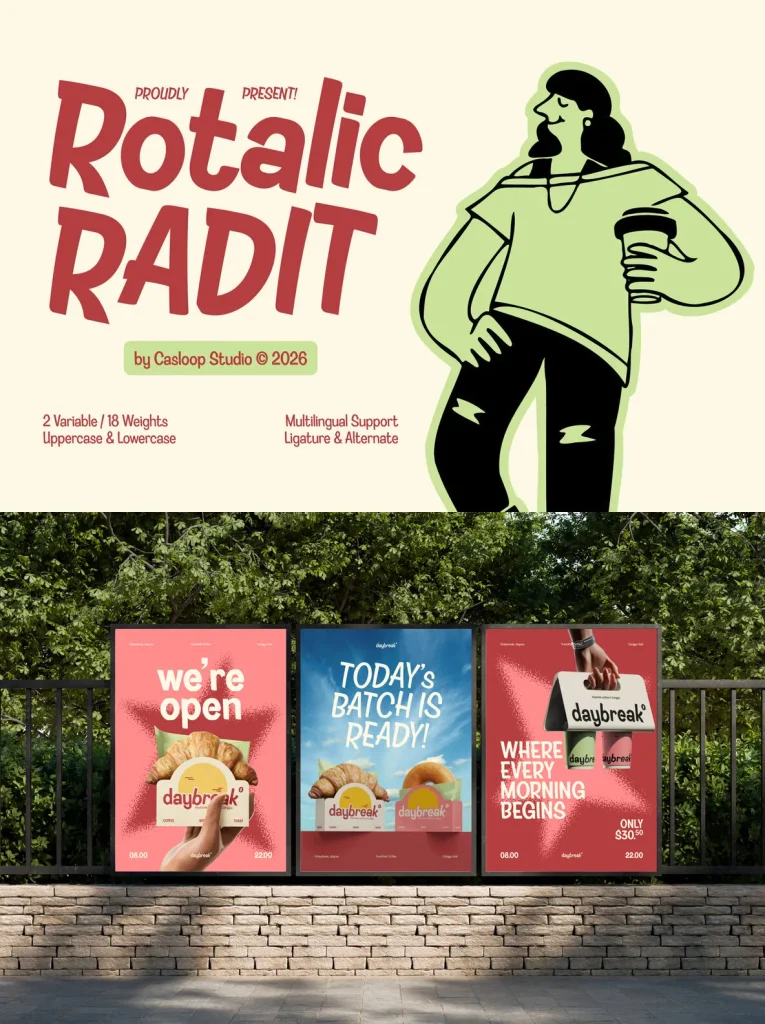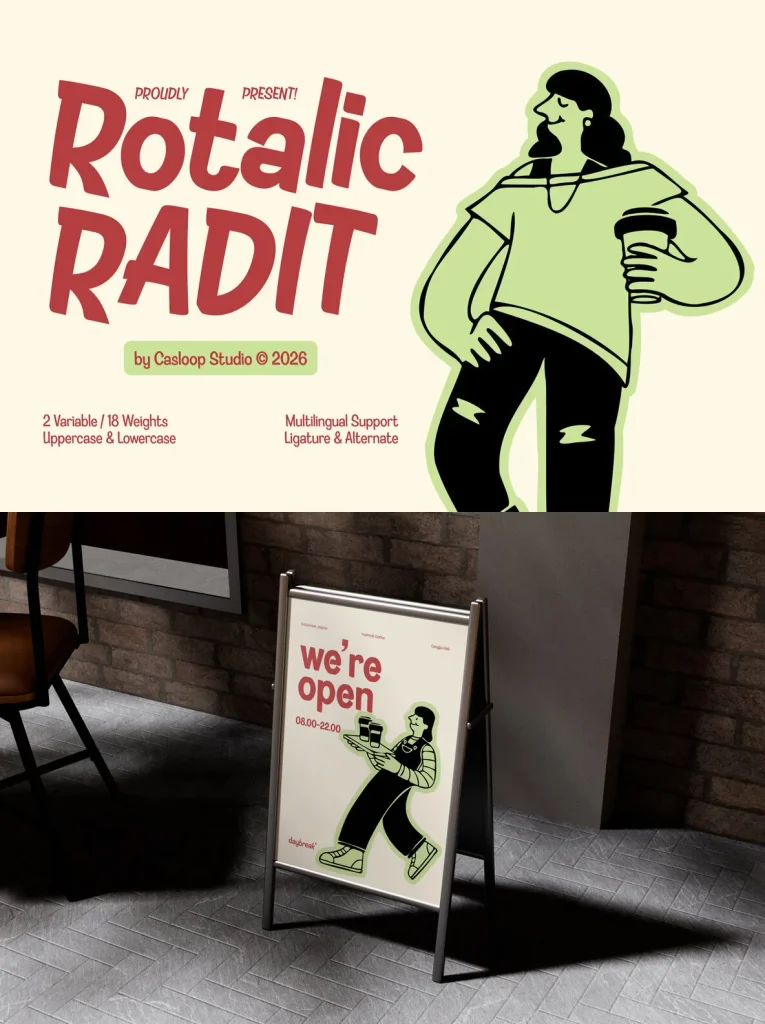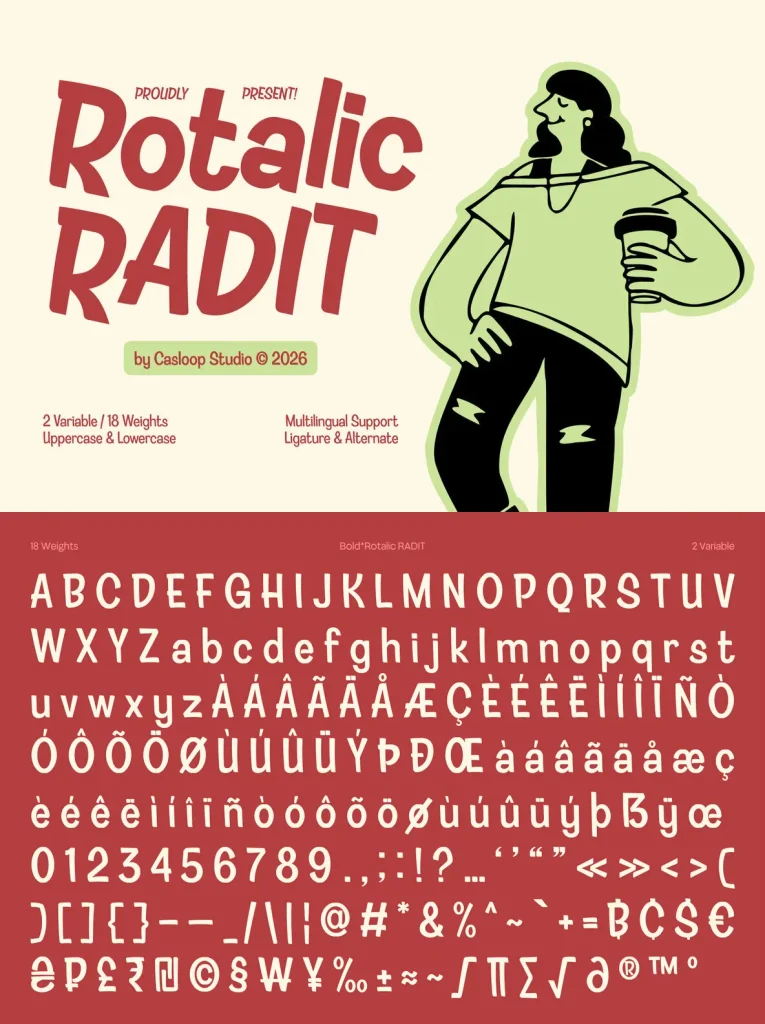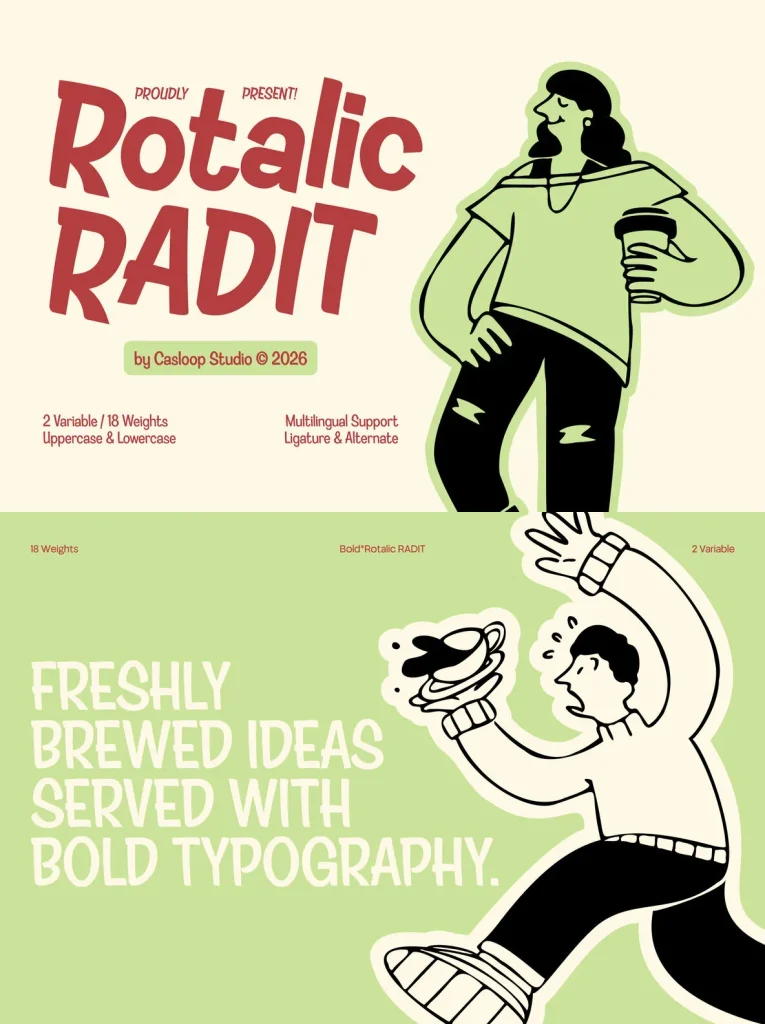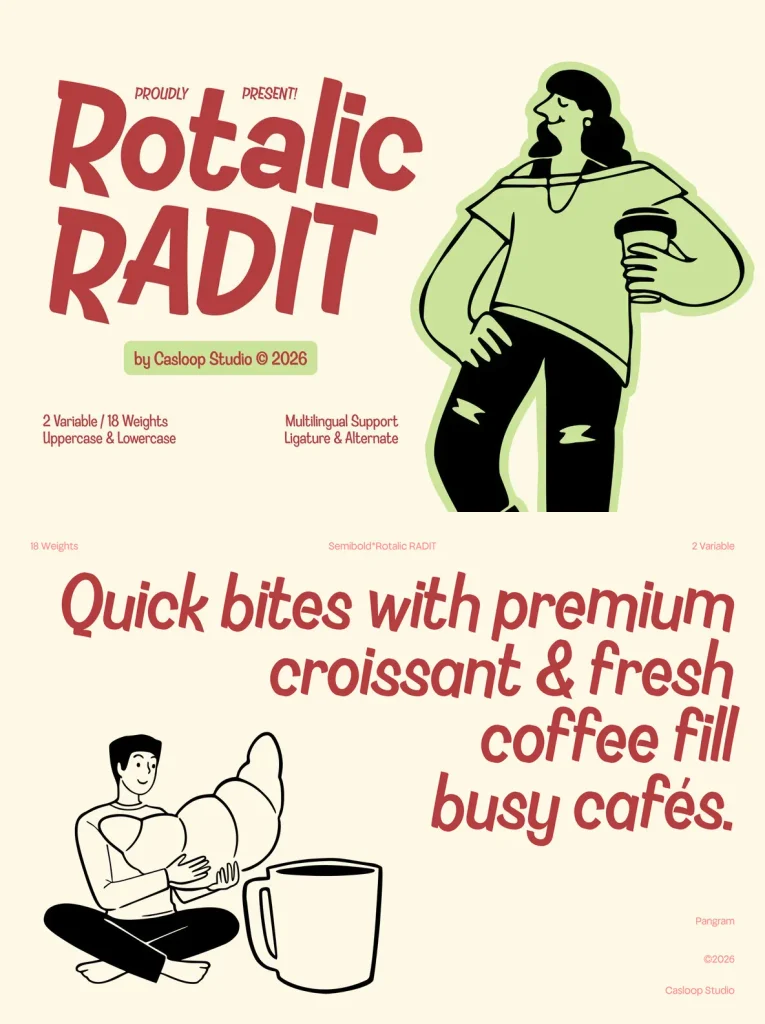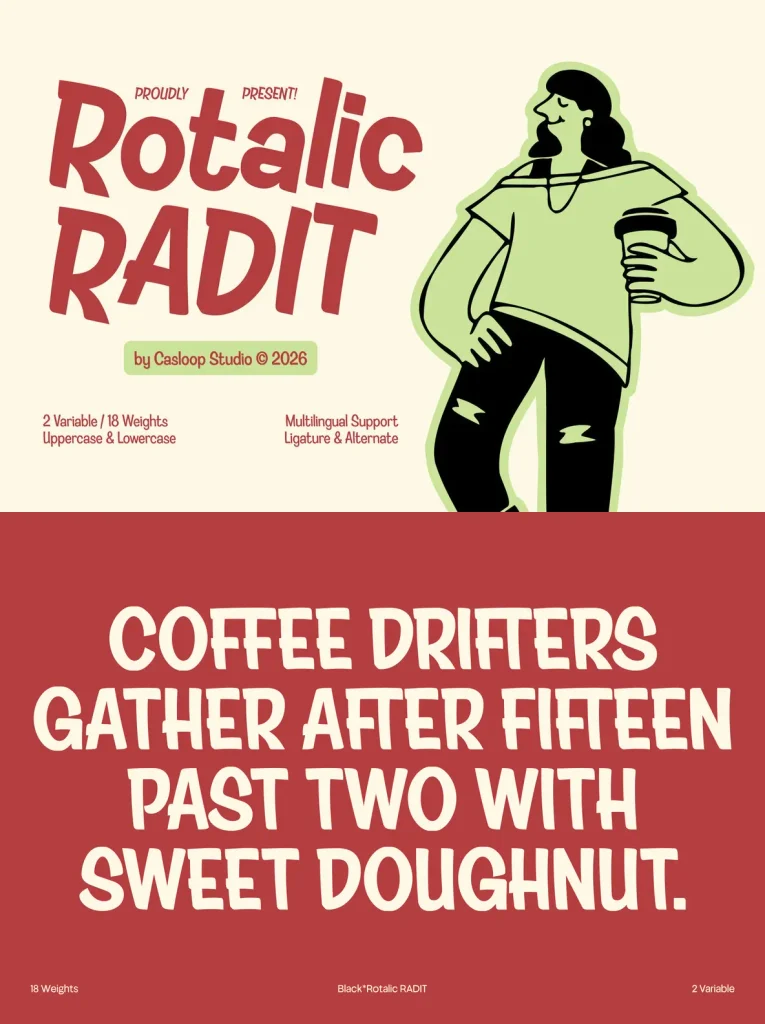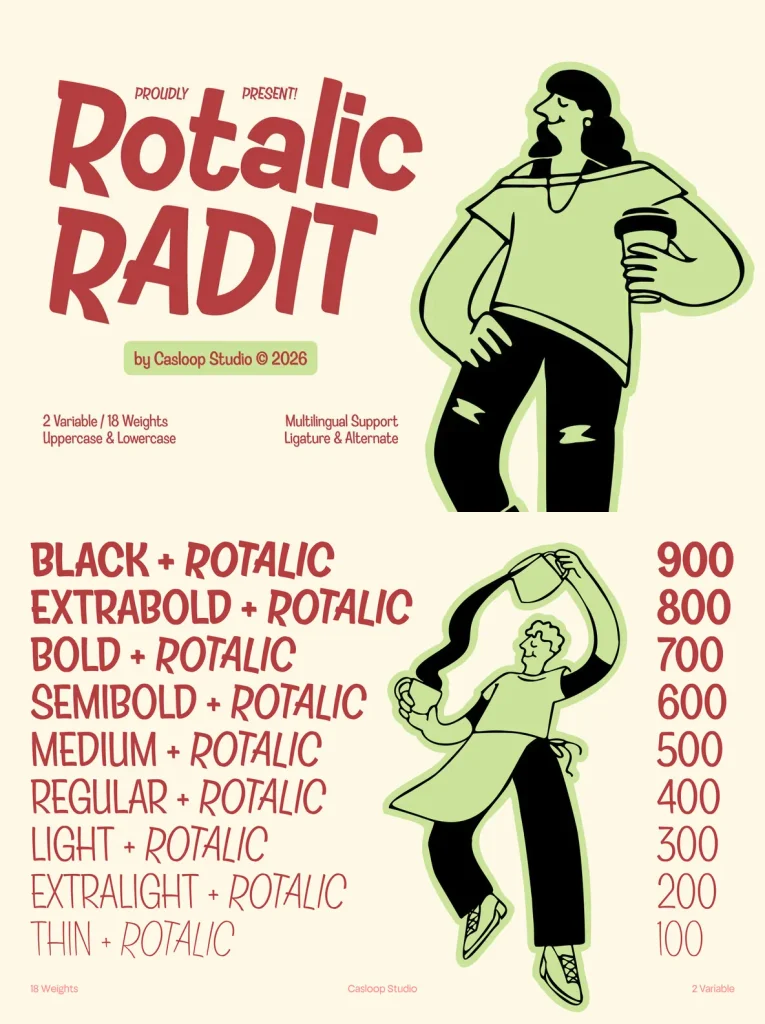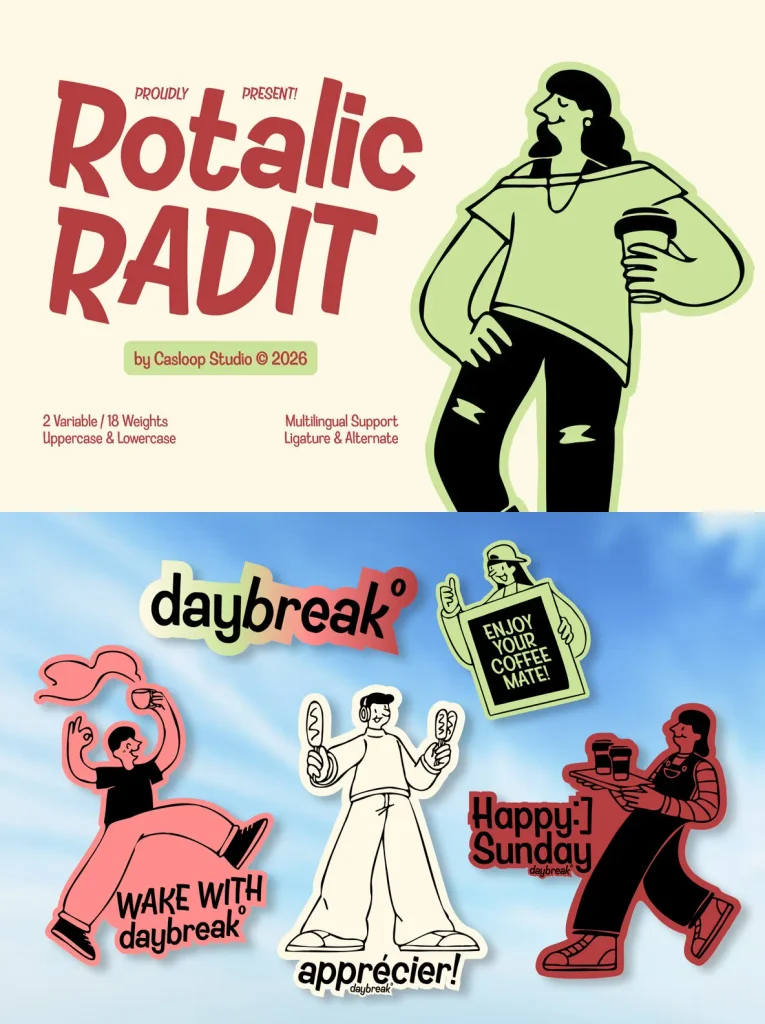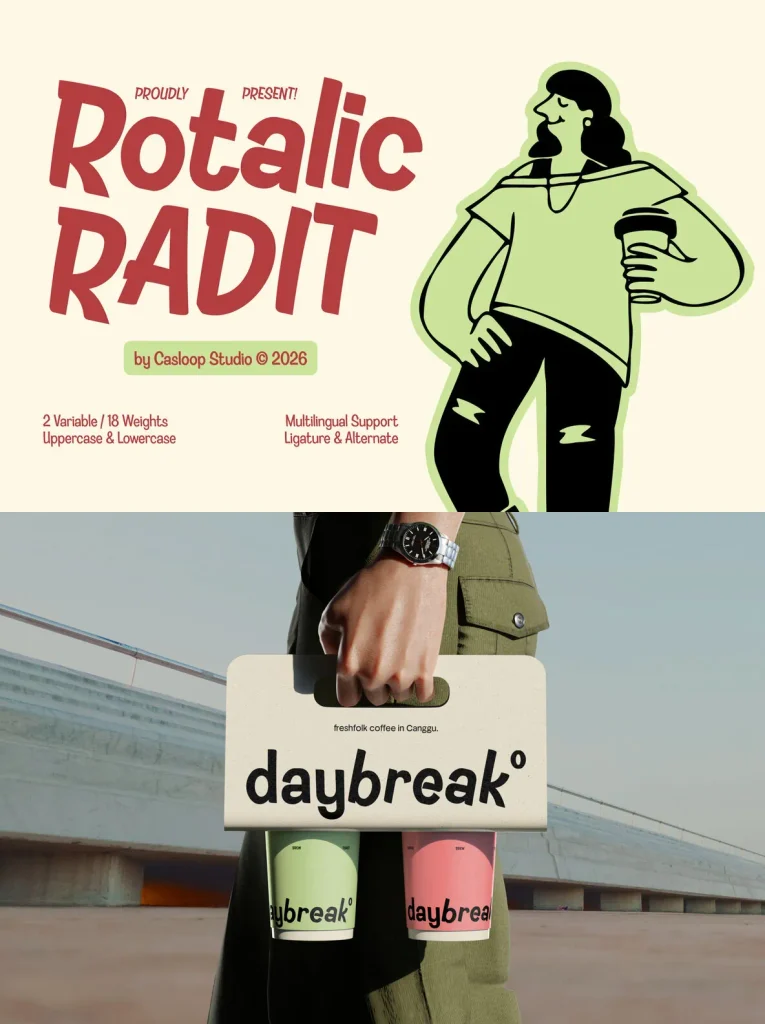
Rotalic Radit — Sign-Painted Energy
Rotalic Radit is a modern sign-inspired typeface that captures the energy of hand-crafted promotional lettering while keeping the consistency needed for contemporary branding. Its defining characters R, A, D, T, O, and S give the font a distinctive visual identity through fluid, attention-grabbing forms that feel spontaneous yet carefully structured.
Inspired by classic sign painting and cafe culture, Rotalic Radit balances personality and readability across packaging, food branding, promotional materials, and modern visual identities. For strong typographic systems, it pairs well with Oswald, Montserrat, Barlow, Franklin Gothic, Futura, and Trade Gothic.
Uppercase & Lowercase,
Numbers and punctuation,
Ligatures & Stylistic Alternates Characters
Multilingual Support
Bosnian, Catalan, Czech, Danish, German, English, Spanish, Estonian, Finnish, French, Irish, Croatian, Hungarian, Icelandic, Italian, Lithuanian, Latvian, Dutch, Norwegian, Polish, Portuguese, Romanian, Slovak, Slovenian, Albanian, Swedish, Turkish.